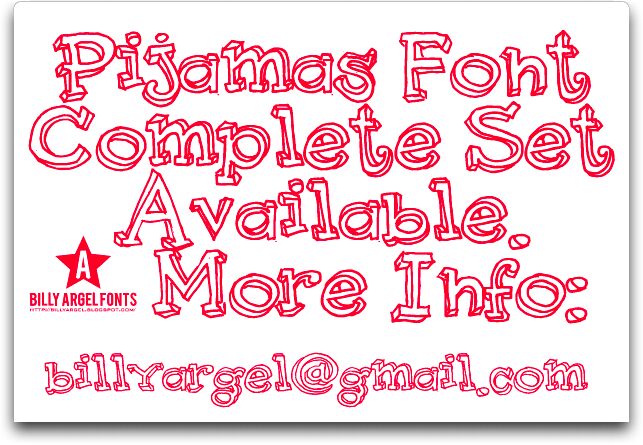
Pijamas by Billy Argel is a free outlined display font with lively, uneven contours and a cut-paper quality. Its letters shift between broad slab-like forms and slimmer shapes, with doubled edges that look loosely traced. The irregular drawing keeps every character active.
Playful food, music, and children's themes suit its handmade bounce, making it useful for cafe packaging, gig posters, and storybook covers. Its open interiors can join an illustration, echoing the loose linework of cartoons and doodles. It will appeal most to designers seeking a cheerful, deliberately unpolished voice for youth events and casual brands.
Pijamas